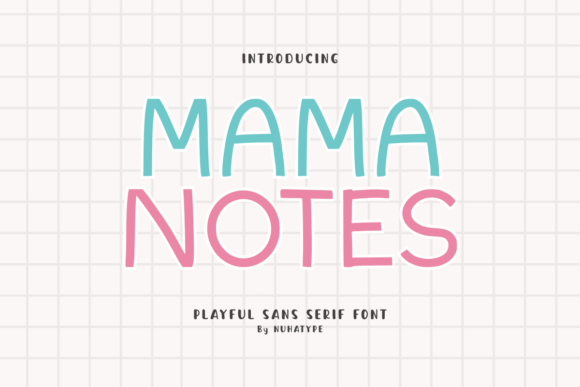
Mama Notes: A Warm Typographic Choice for Branding Projects
There’s something oddly comforting about a handwritten font. It feels personal, like a note left on your desk by a friend. That’s exactly what I felt when I first opened the Mama Notes font. As a graphic designer working on a branding project for a small local café, I was looking for a typeface that could convey warmth and approachability without being too childish or overly stylized. Mama Notes struck the right balance—soft, friendly, and just a little bit handcrafted.
A Typographic First Impression
I started by placing Mama Notes on a few logo drafts. The first thing I noticed was how it brought a sense of character to otherwise plain text. Its sans serif structure gave it a modern feel, but the subtle curves and irregularities in the letterforms made it feel more like a hand-drawn script than a rigid digital font. It wasn’t too playful, which was important for a café brand that wanted to feel welcoming but not whimsical.
The font’s personality is clear from the start. It has a natural, almost organic look that makes it ideal for creative projects where a human touch is needed. Whether it’s used for a logo, packaging, or social media graphics, Mama Notes adds a layer of authenticity that can be hard to replicate with standard fonts.
Testing in Real Design Scenarios
I began testing Mama Notes in different design contexts. On a mockup for the café’s menu board, it looked great paired with a clean, modern sans serif font for contrast. The combination worked well to highlight both the café’s casual vibe and its attention to detail. I also tried using it as a headline on a flyer, and it immediately caught the eye without overwhelming the reader.
One of my favorite uses was on a business card. The soft curves of Mama Notes made the text feel more inviting, which aligned perfectly with the café’s brand identity. I even tested it on a sample label sticker for a product they were planning to launch—a handmade soap line. The font’s friendly nature helped the product feel more personal and artisanal.
On the web, I used Mama Notes for a homepage hero section. It was readable at larger sizes and maintained its charm even when scaled down. I found it particularly effective for short-form text like headlines and call-to-action buttons. It didn’t feel cluttered, which is a common issue with some handwriting-style fonts.
Font Pairing and Visual Hierarchy
When pairing Mama Notes with other fonts, I focused on creating a visual hierarchy that supported the brand’s message. For instance, I paired it with a bold, geometric sans serif font for headings and titles, while using a simpler, more neutral sans serif for body text. This contrast helped guide the viewer’s eye and kept the design balanced.
I also experimented with using Mama Notes as an accent font. In one case, I used it sparingly on a poster for a seasonal event. It added a nice pop of personality without overpowering the rest of the design. The key was to use it strategically—less is often more when it comes to handwriting fonts.
Practical Considerations for Designers
Before committing to a font for a full brand system, I always recommend testing it across various mediums. How does it look on a sign? A business card? A website header? Social media posts? These are all critical touchpoints for a brand’s identity.
Mama Notes includes several weights and alternates, which gives designers flexibility in their work. It also supports multiple languages, making it a versatile choice for international clients. However, I would advise checking the licensing details to ensure it meets any commercial requirements, especially if the project involves print or digital assets that will be sold or distributed widely.
Designing with Purpose
Ultimately, Mama Notes isn’t just another free font—it’s a tool that can help designers create more meaningful connections between brands and their audiences. Its warm, handcrafted feel brings a level of authenticity that’s hard to achieve with more sterile, digital fonts.
Whether you’re designing for a boutique, a skincare brand, or a creative studio, Mama Notes offers a unique way to express personality and style. It’s a great option for anyone looking to add a touch of warmth and character to their design work.
As I wrapped up the project, I realized that the best part of using Mama Notes wasn’t just its aesthetic appeal—it was how it made the entire design process feel more intentional and connected. It reminded me why I love working with typography: because it can turn simple words into something truly special.